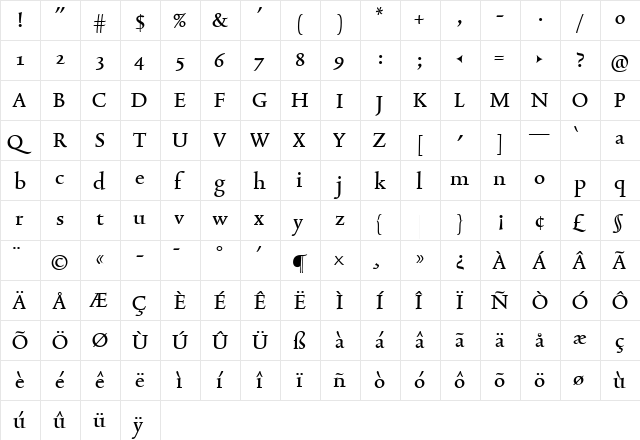
TriniteNo3 Medium Font Preview
TriniteNo3 Medium
TriniteNo3 Medium Font Details
Design Context for TriniteNo3 Typeface
TriniteNo3 is a composed and adaptable typeface that performs quietly and consistently across a wide range of design contexts.